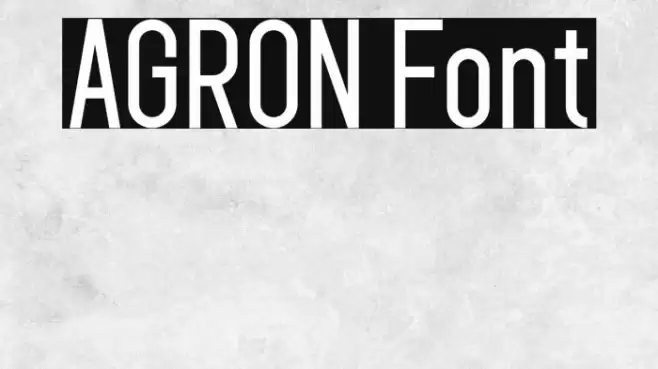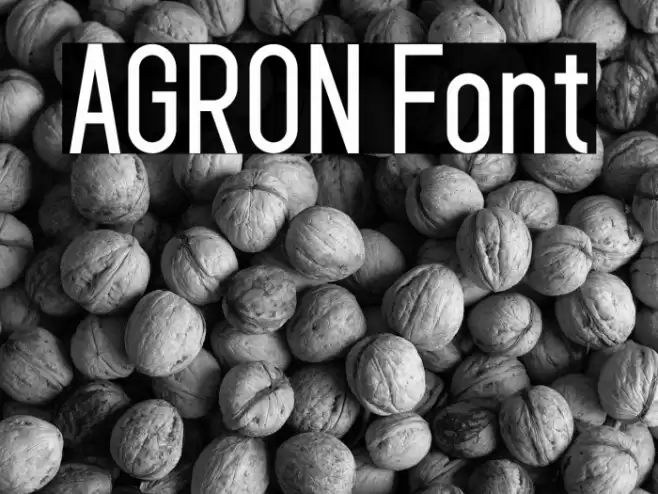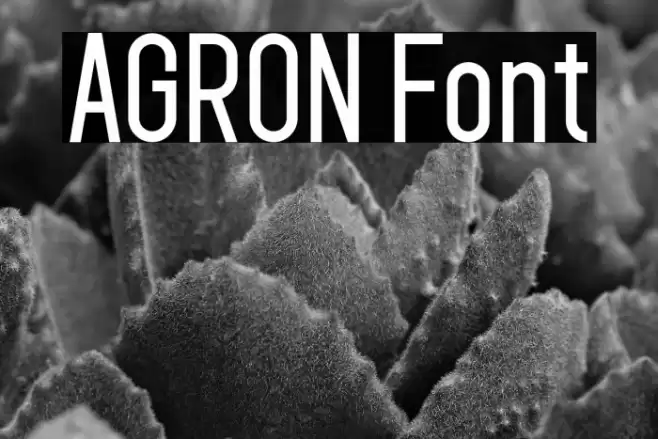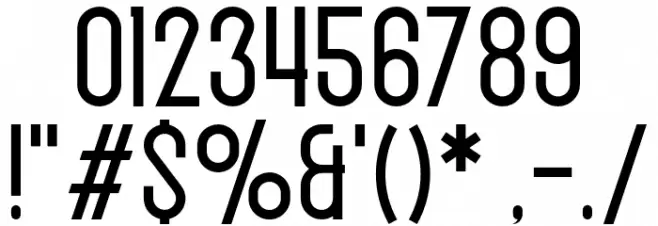
AGRON Font
AGRON Description
This font features a clean, modern sans-serif style with uniform stroke widths, giving it a sleek and contemporary appearance. The characters are tall and narrow, contributing to a condensed look that maximizes space efficiency. The uppercase letters are bold and commanding, while the lowercase letters maintain a consistent height, enhancing readability. The numerals are straightforward and align well with the overall design, making them suitable for various applications. Special characters are clearly defined, ensuring versatility in usage. The font's simplicity and clarity make it ideal for both digital and print media.
A modern, condensed sans-serif font with clean lines and uniform strokes from Regular fonts.
- Proposed Projects: Ideal for branding, advertising, web design, and editorial layouts.